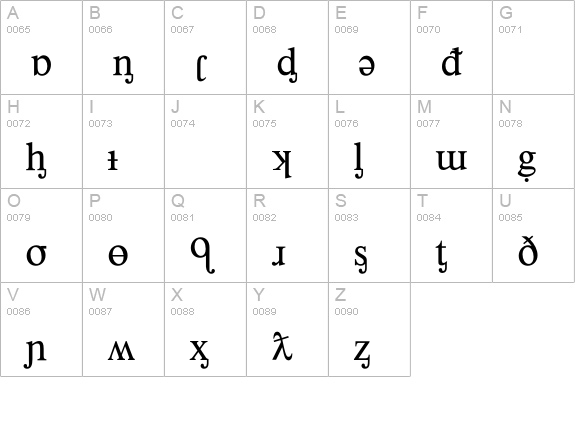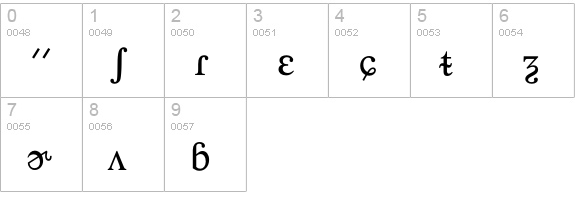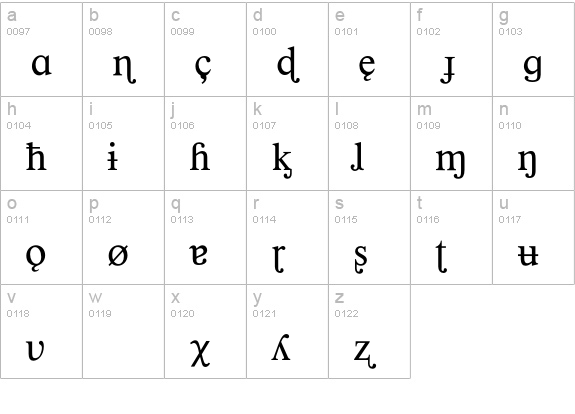
PhoneticsP01 Font Details
Introducing PhoneticsP01, a captivating and versatile font that is sure to leave a lasting impression. This unique typeface is perfect for a variety of creative projects, from logo designs to branding materials, to social media posts and more. With its modern and sleek design, PhoneticsP01 exudes a sense of professionalism and sophistication. One of the standout features of PhoneticsP01 is its extensive character set. This font includes a wide range of glyphs, allowing you to effortlessly express your creativity and bring your ideas to life. Whether you're looking for elegant uppercase letters, stylish lowercase letters, or eye-catching special characters, PhoneticsP01 has you covered. In addition to its exceptional design, PhoneticsP01 also offers great functionality. The font is incredibly easy to read, making it a perfect choice for any project that requires clear and legible text. It's also highly adaptable, seamlessly blending into various design styles and aesthetics. But that's not all - PhoneticsP01 is also available for free! That's right, this stunning font can be downloaded at no cost from FontsMarket.com. This means that you can elevate your designs and make a lasting impression without breaking the bank. Whether you're a professional designer or a creative enthusiast, PhoneticsP01 is a must-have font in your collection. So why wait? Unlock the full potential of your designs with PhoneticsP01. Download this incredible font for free at FontsMarket.com and let your creativity soar to new heights.